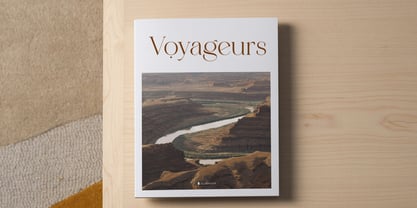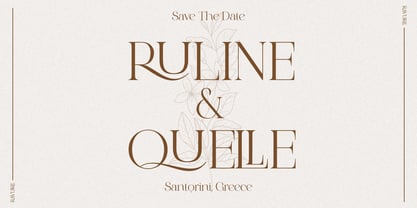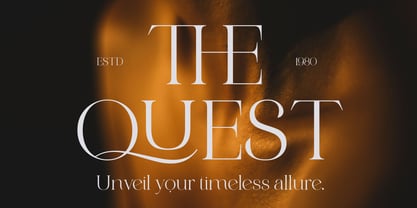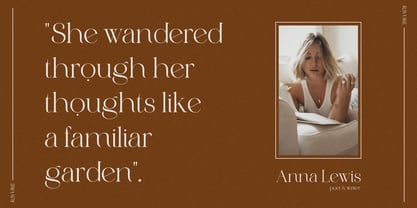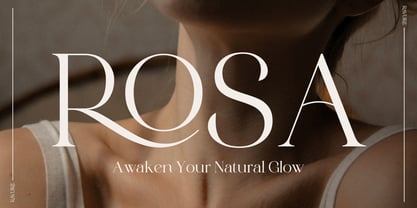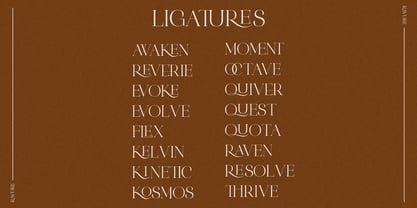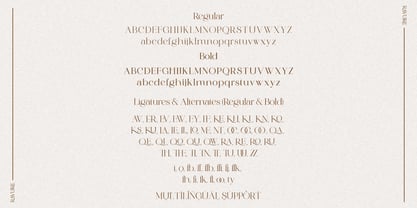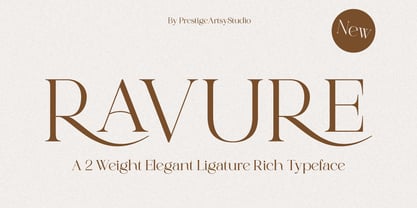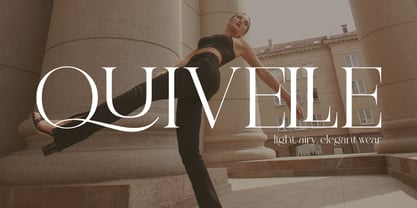
The Ravure Font Family was designed by Zak M and published by Prestige Artsy Studio. Ravure contains 2 styles and family package options. More about this family
Transform your regular text into captivating artistry with this timeless serif font, enchanting with its graceful curves and intricate details. Ideal for wedding invitations, upscale branding, social media graphics, magazine layouts, and editorial projects, it harmoniously merges classic elegance with a contemporary twist. This versatile typeface enhances any design, from romantic announcements to luxurious logos and refined marketing materials, infusing your words with prestige and beauty.